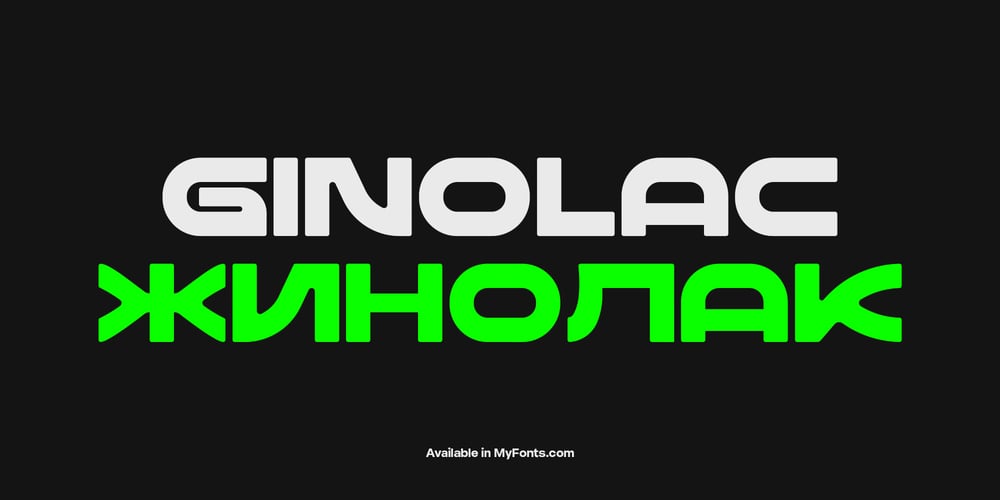
Ginolac Font Family was designed by Hafizh Alvarozzy and published by Avortic Type Studio. Ginolac contains 1 styles and family package options. Ginolac is a unique, and creative font made by Avortic. Wrapped in a unique concept, this font is feasible and suitable for testing on several works in the form of posters, advertisements, crafts, and others. Don’t forget that this font is already available in Russian, making this font not only usable by British or American people but also by Russians and surrounding areas.